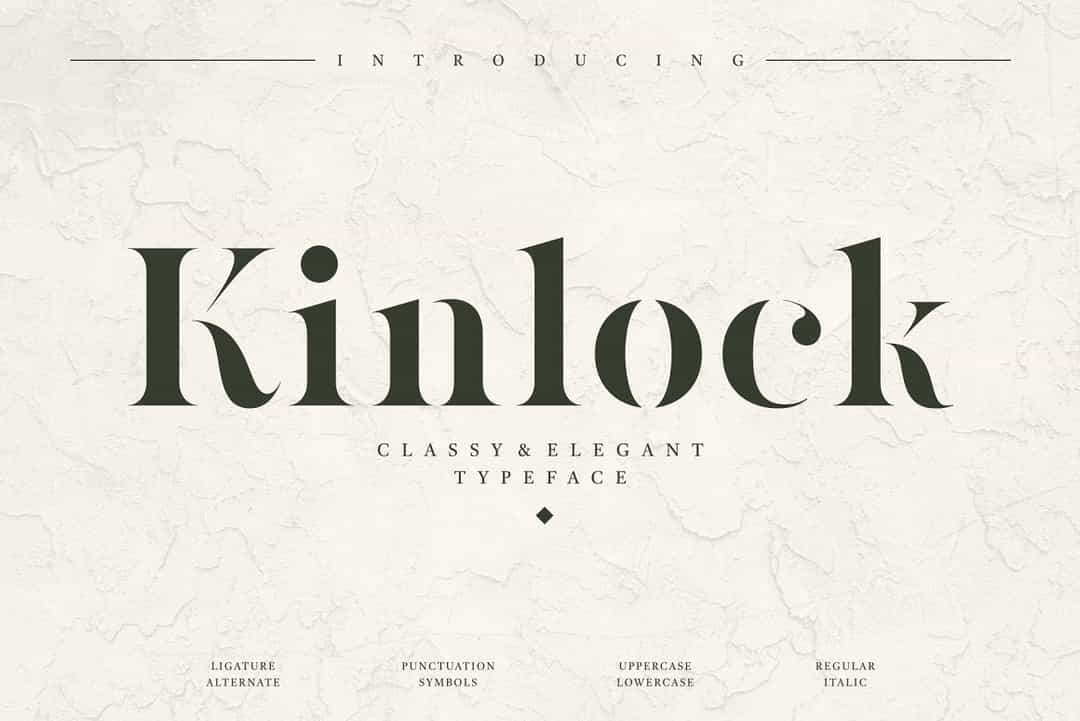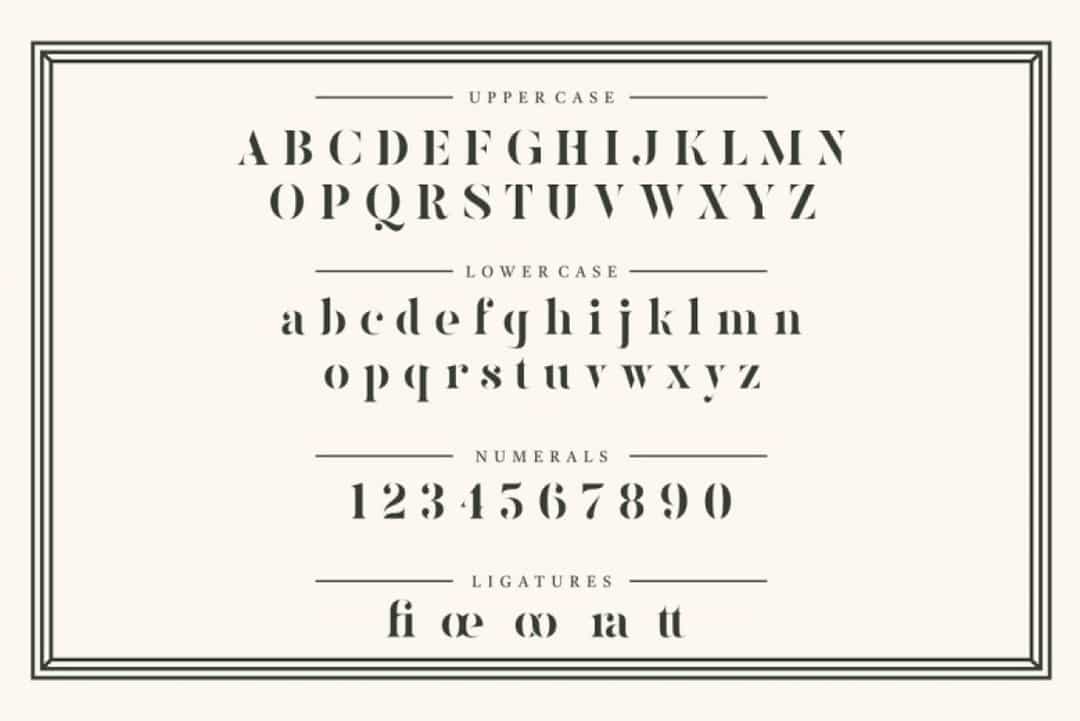
Kinlock is an elegant stencil serif typeface with italic and regular versions that is ideal for sophisticated design tasks, including packaging of luxury products labels, advertising, branding etc. Kinlock contains all the regular glyphs and most essential ligatures, in addition to multilingual characters.